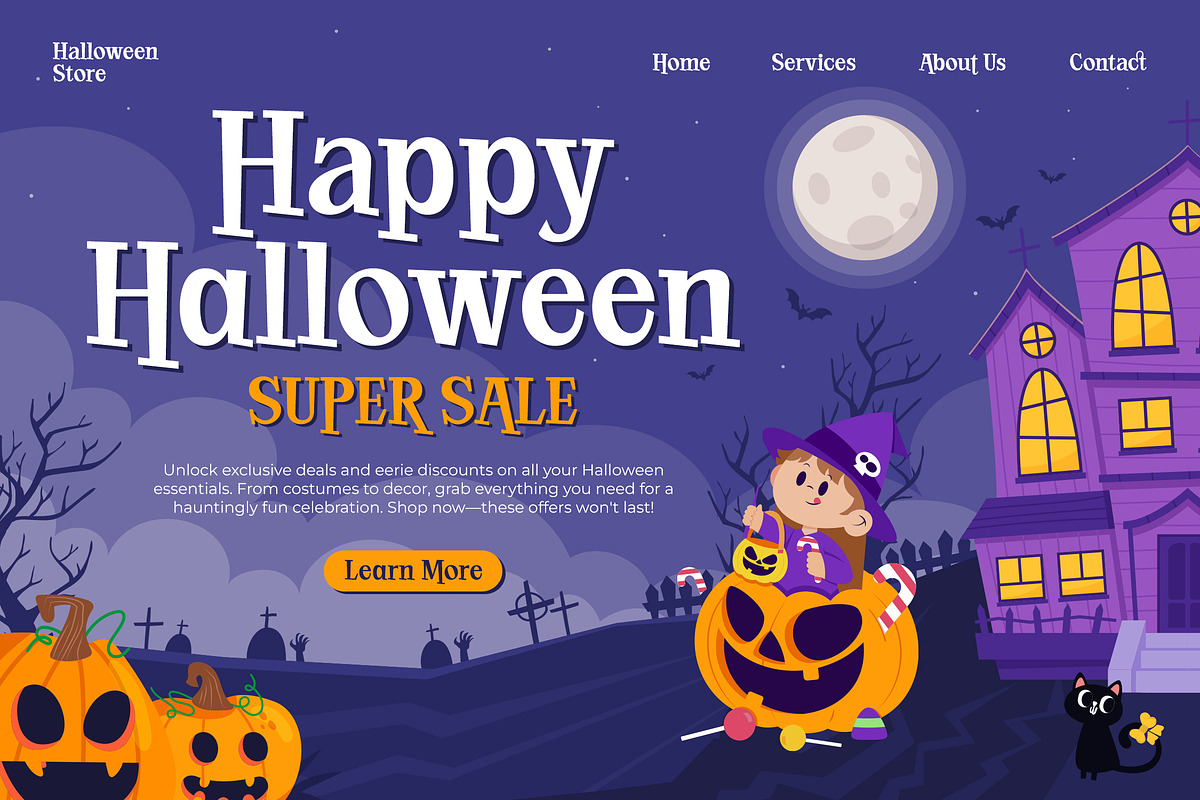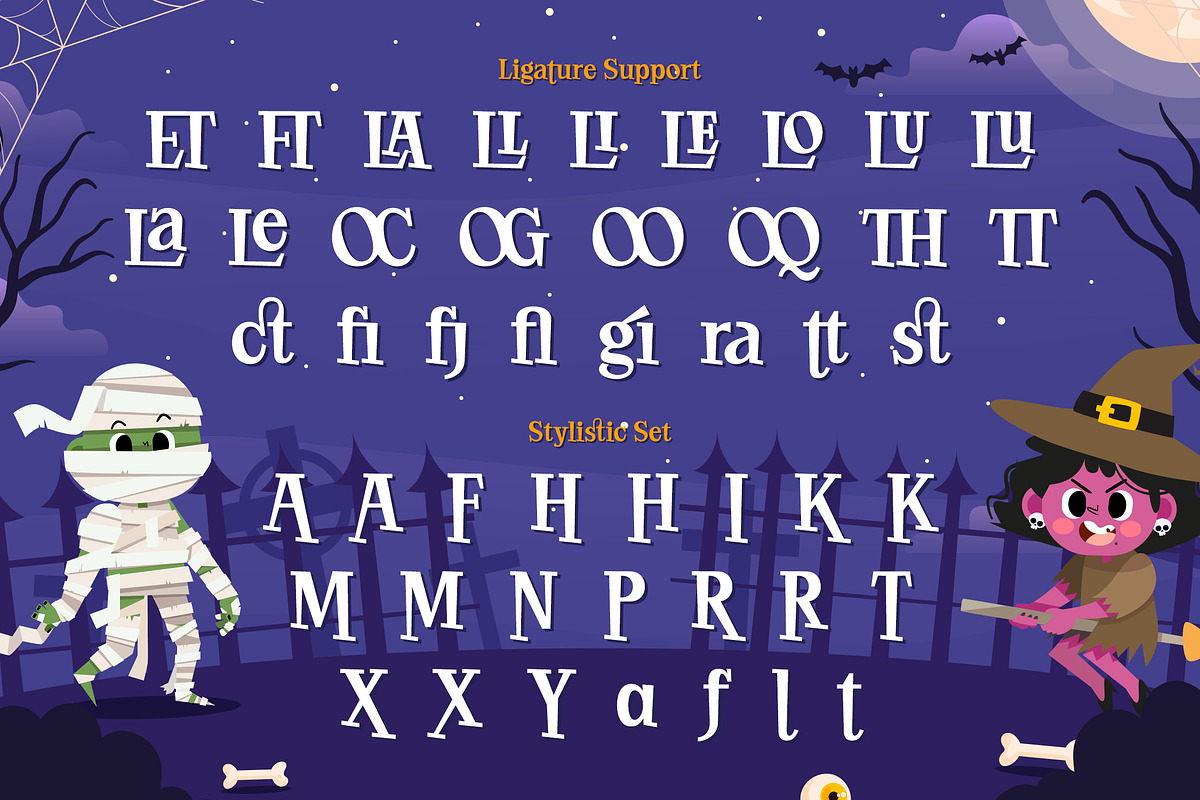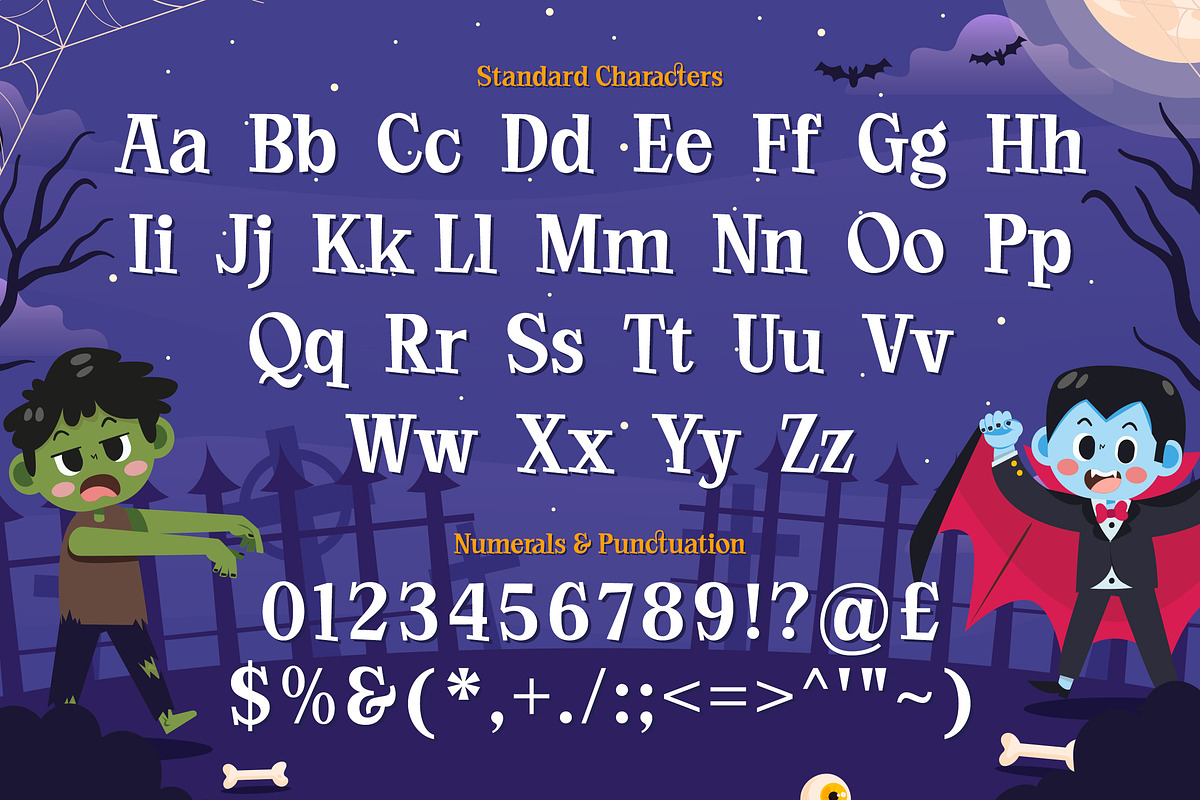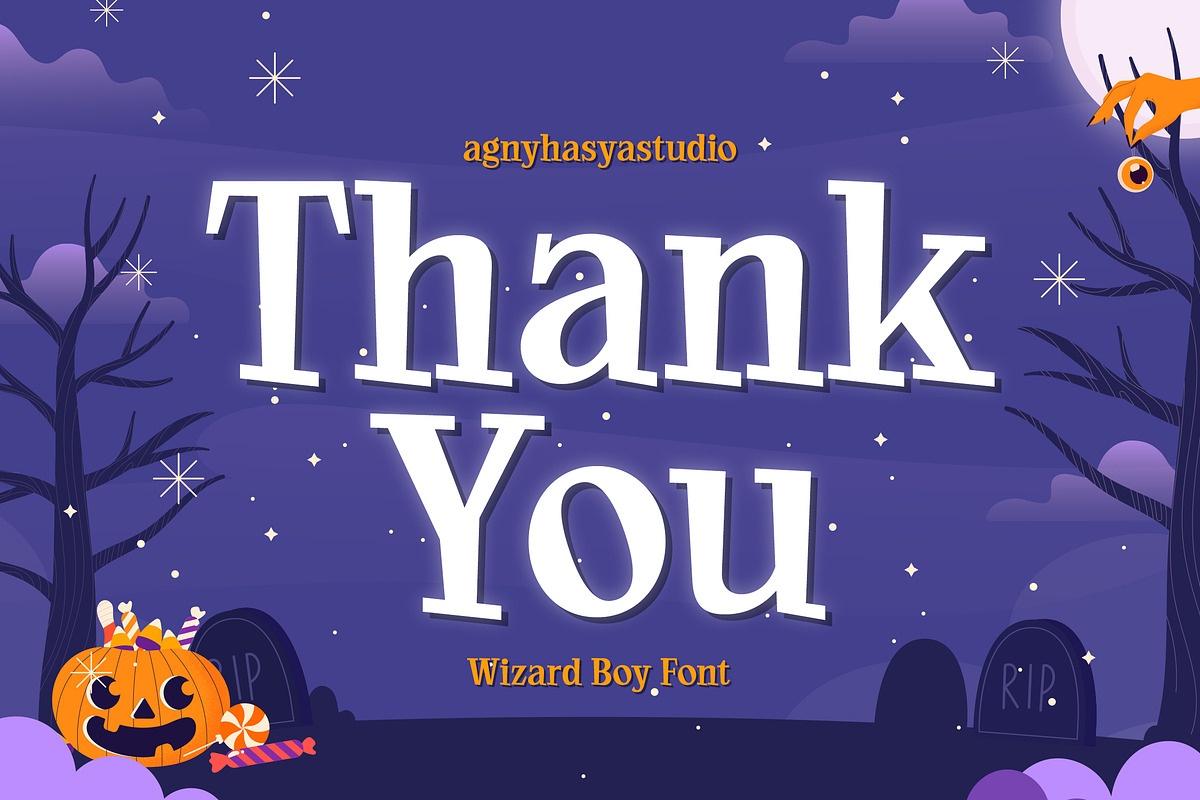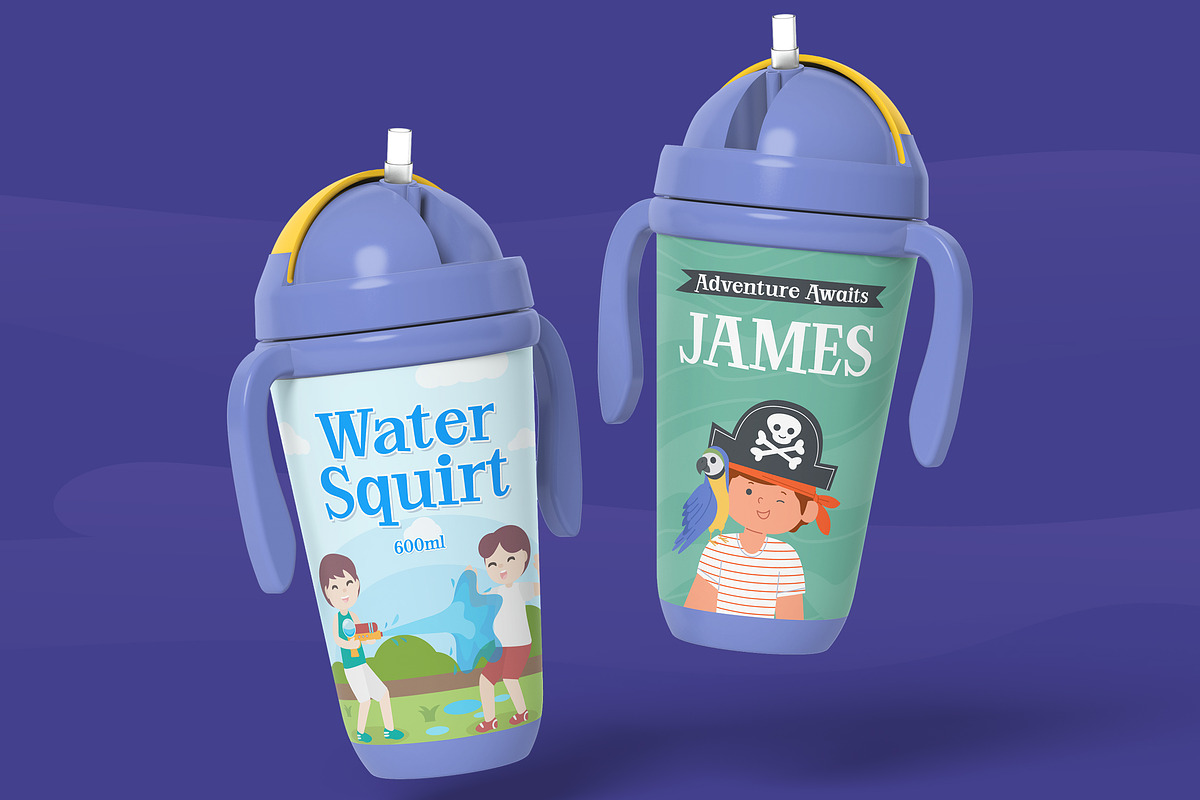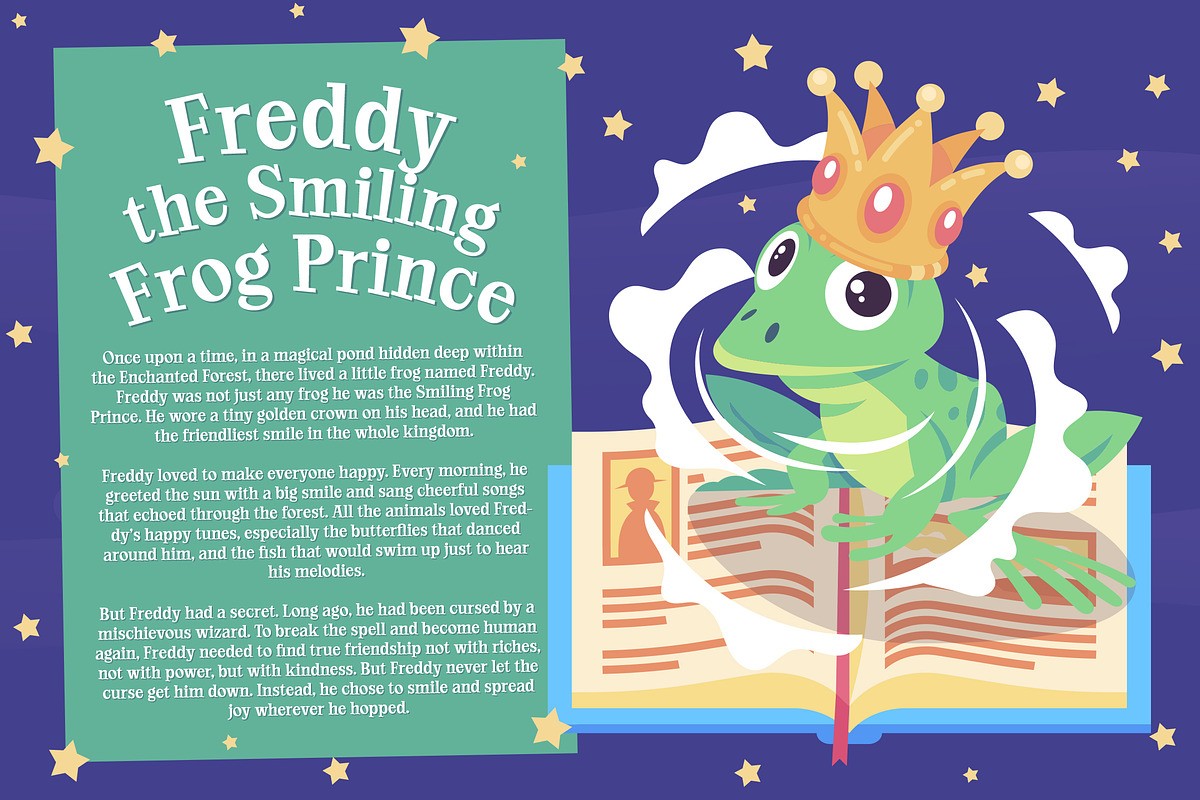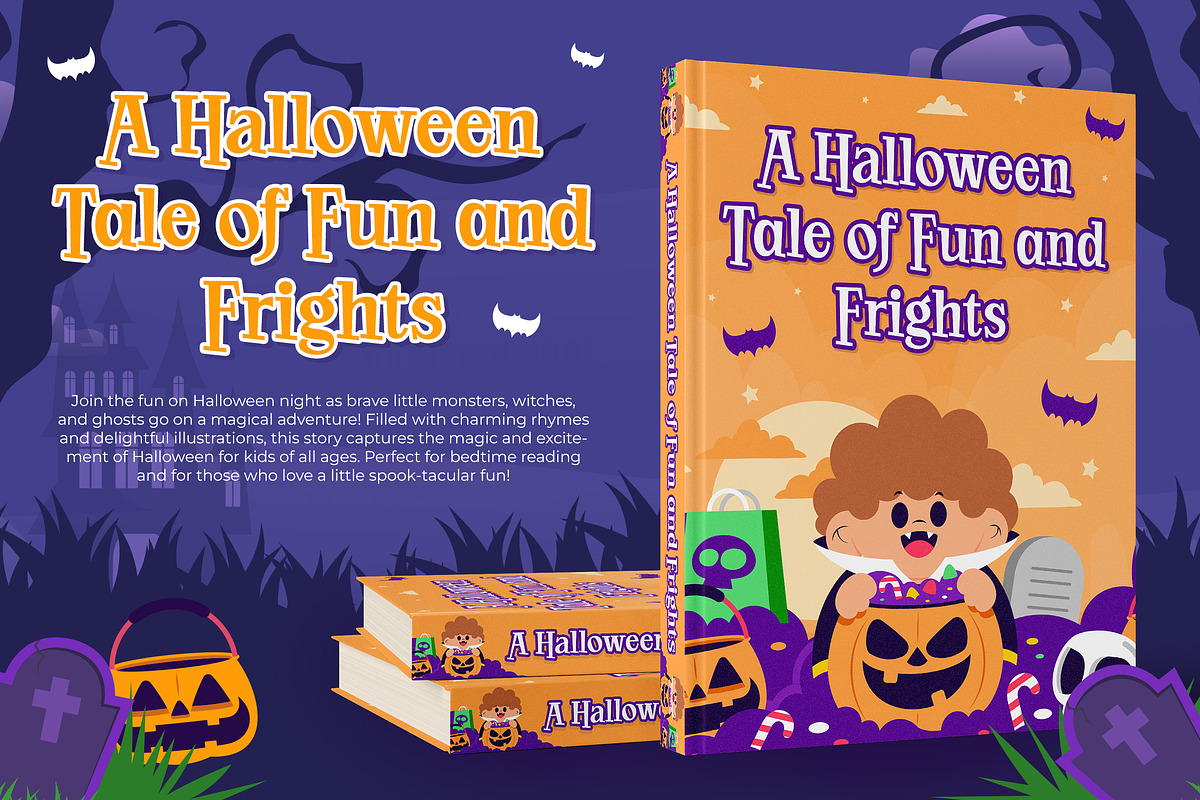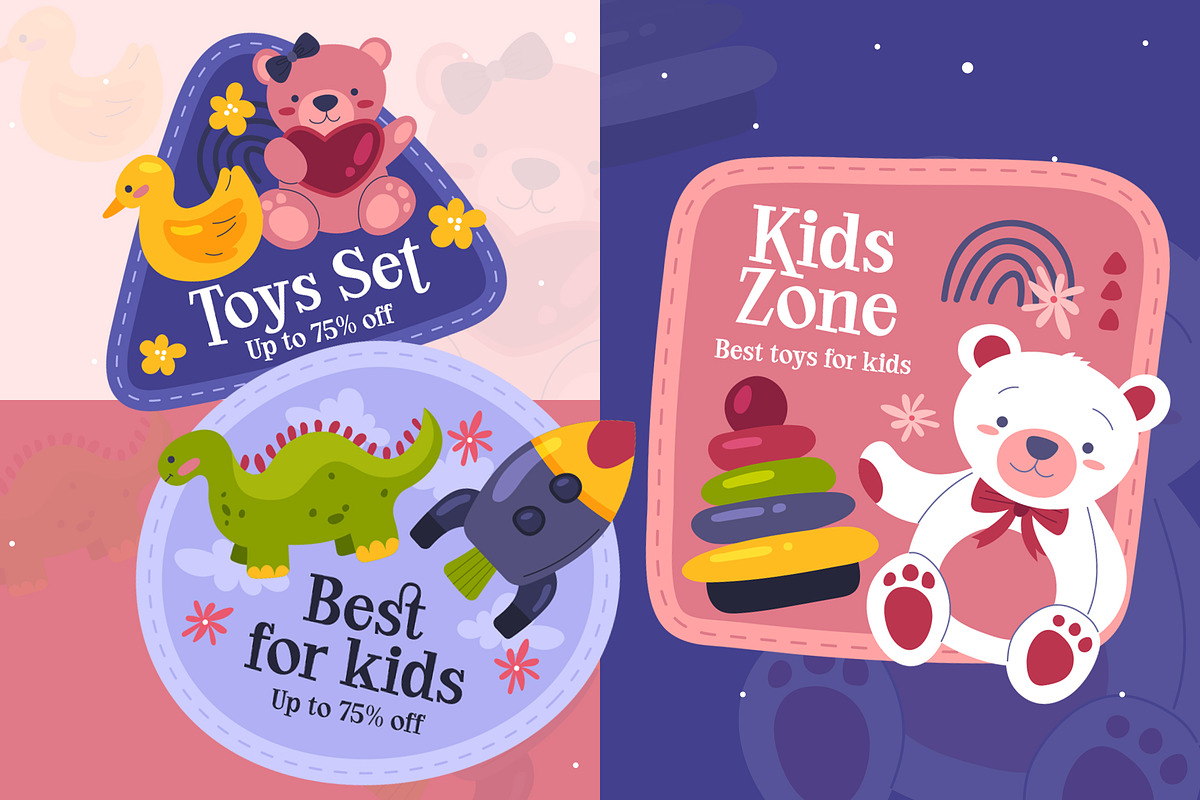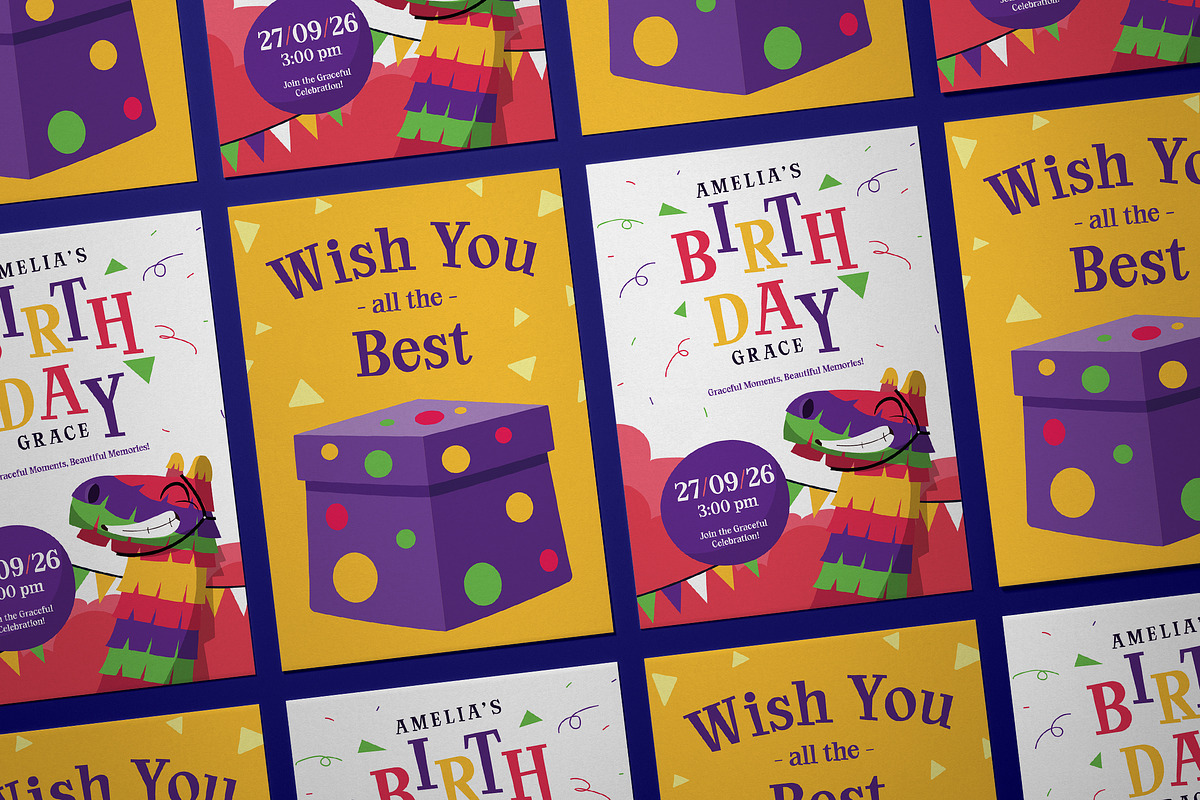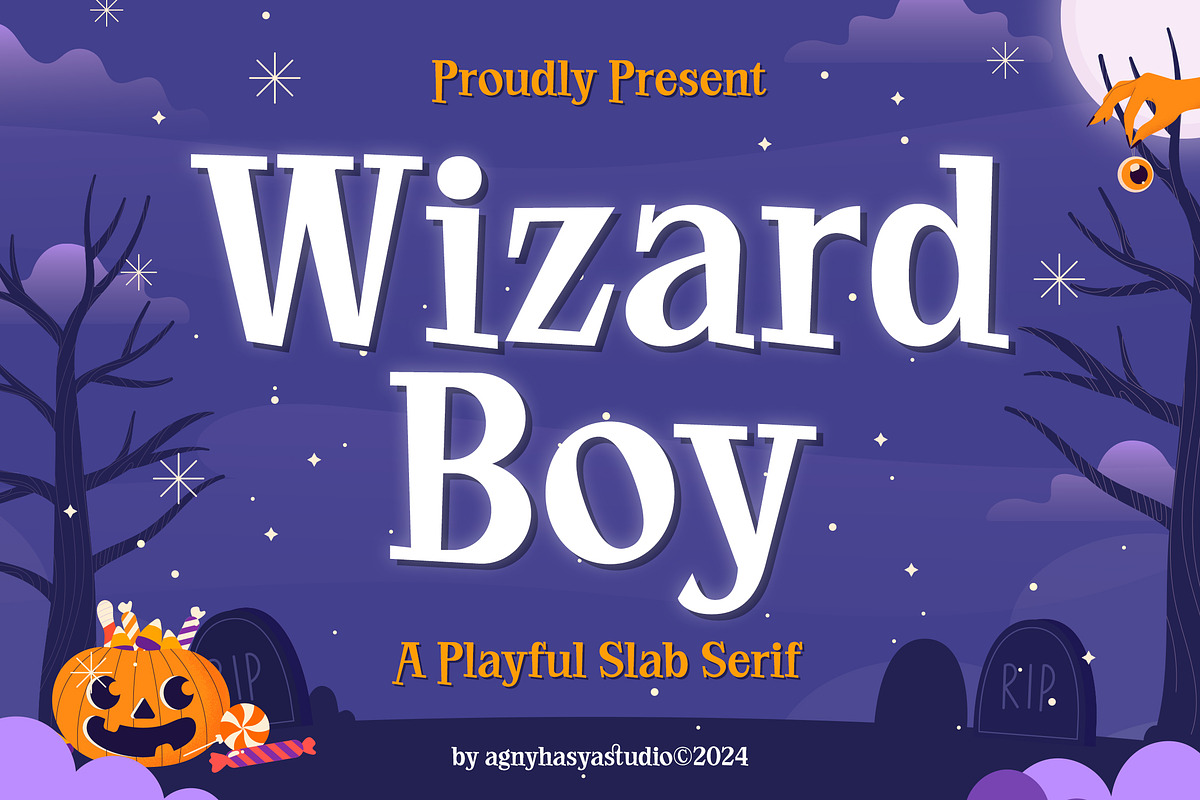
Wizard Boy
Introducing Wizard Boy - a playful and fun Slab Serif Typeface that brings a dash of magic and wonder to every design. Essential for Halloween events, it captures the spirit of mischief and enchantment. For children or school projects, this font is the embodiment of youthful creativity. Playful themes come alive when they're graced with Wizard Boy's charm.
Utilize its spellbinding appeal for branding and advertising campaigns, product designs, magazine layouts and book/cover titles. It weaves an enchanting narrative for art quotes and is perfect for adding an original touch to special events, labels, and product packaging.